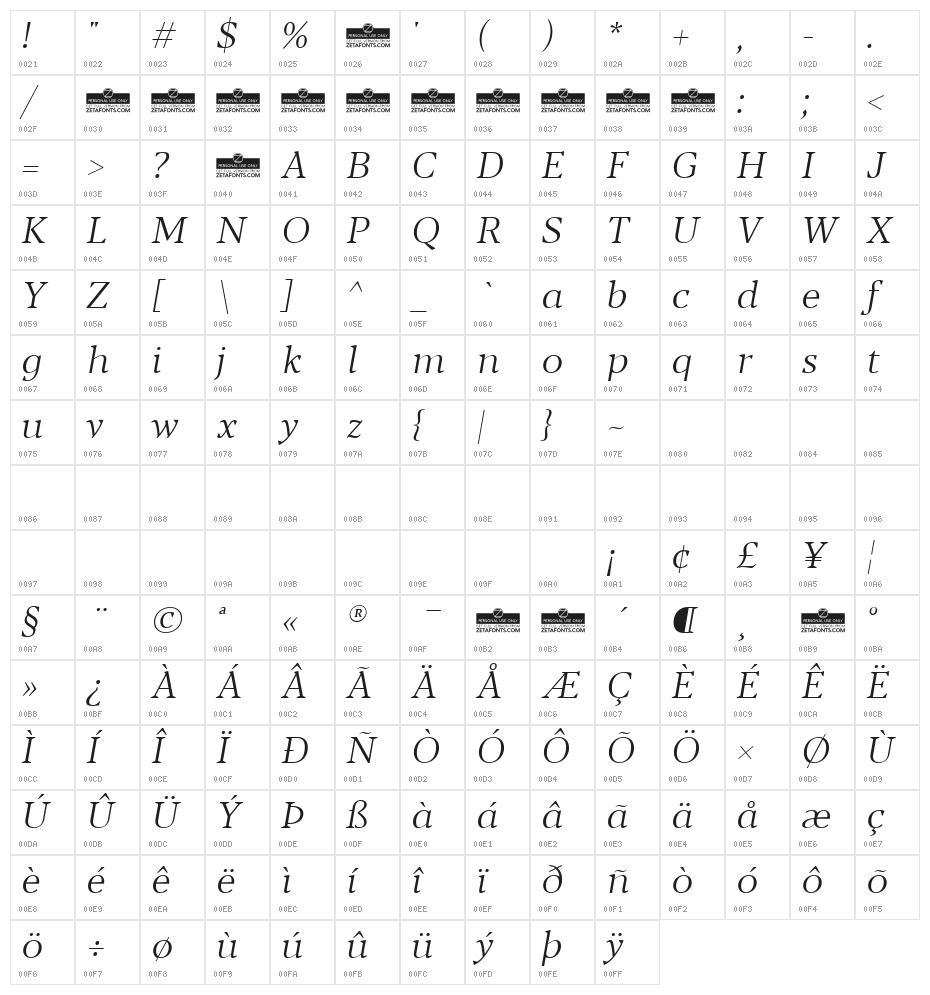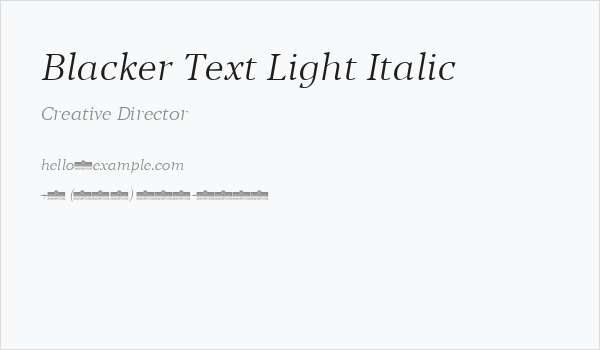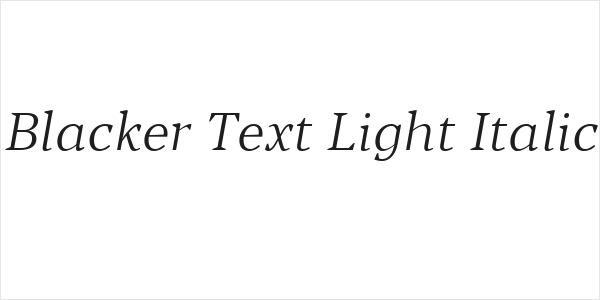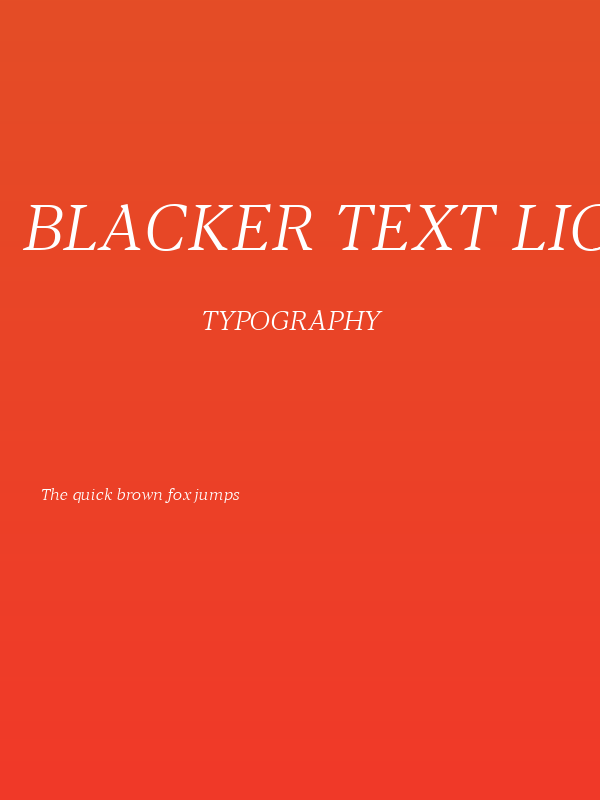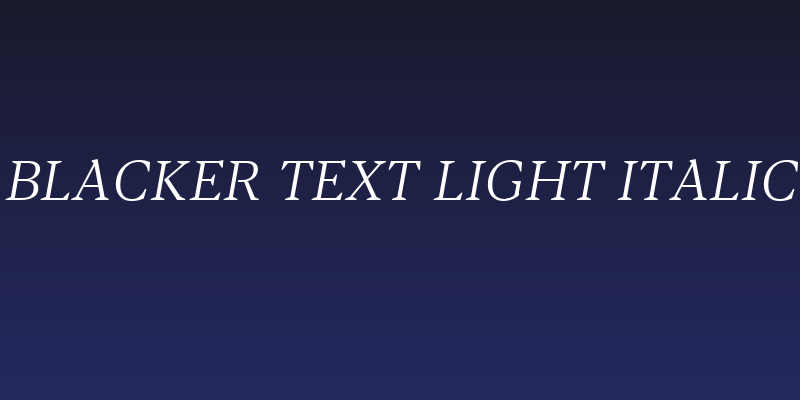
Blacker Text Light Italic Font
Blacker Text Light Italic Description
This font features a sophisticated and elegant design with a light weight and italic style. The characters are slightly slanted, adding a dynamic and fluid appearance. The serifs are subtle, providing a classic touch without overwhelming the overall modern aesthetic. The font maintains a consistent stroke width, contributing to its refined and polished look. It is well-suited for conveying a sense of elegance and professionalism, making it ideal for formal documents, branding, and editorial design.
| Proposed Projects | Ideal for branding, editorial design, formal invitations, and professional documents. |